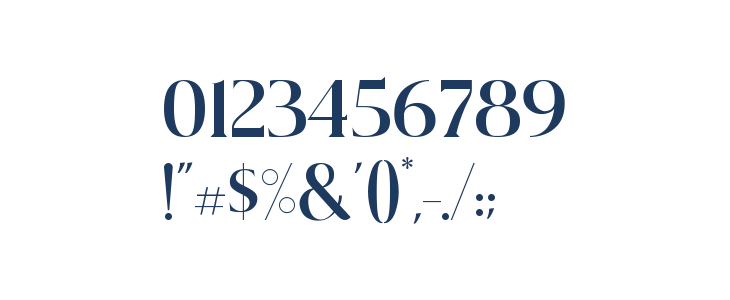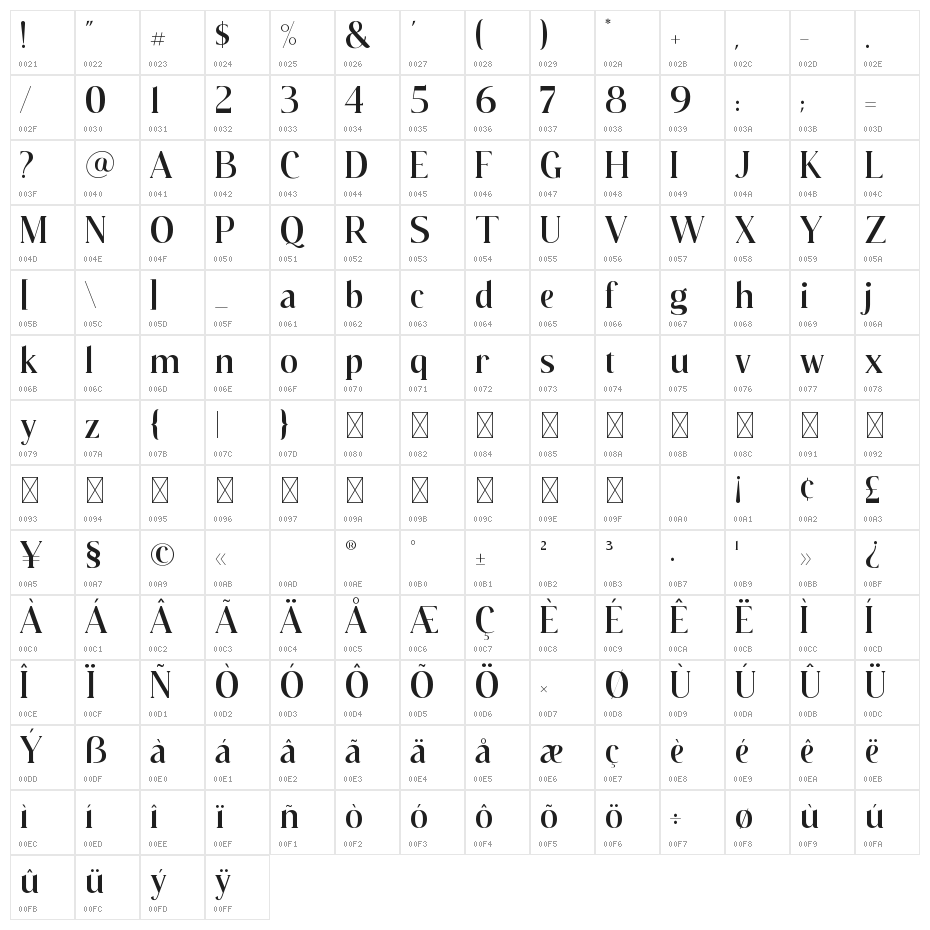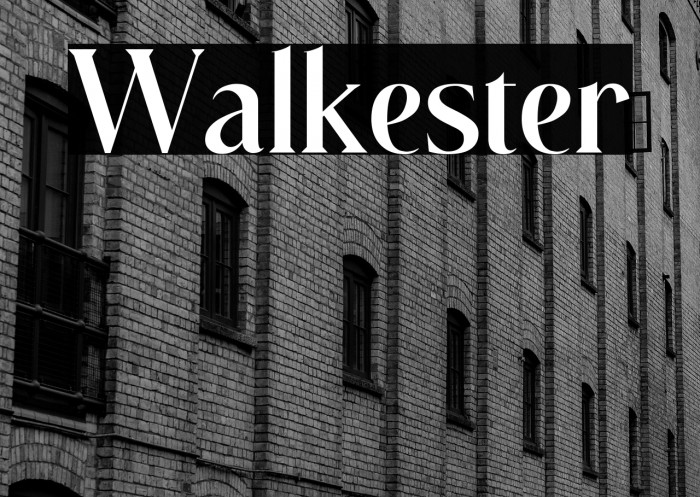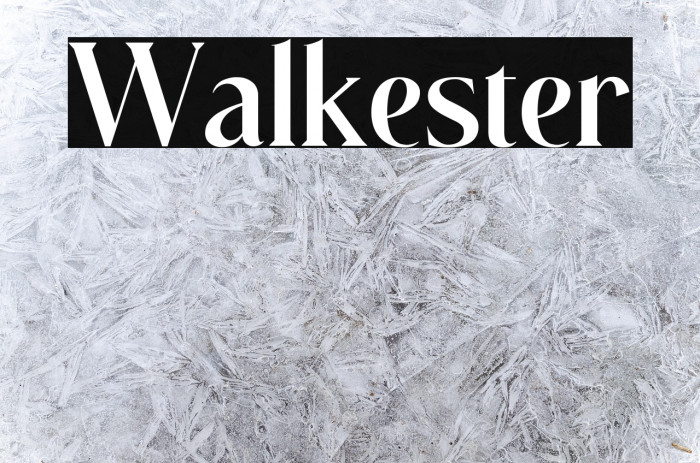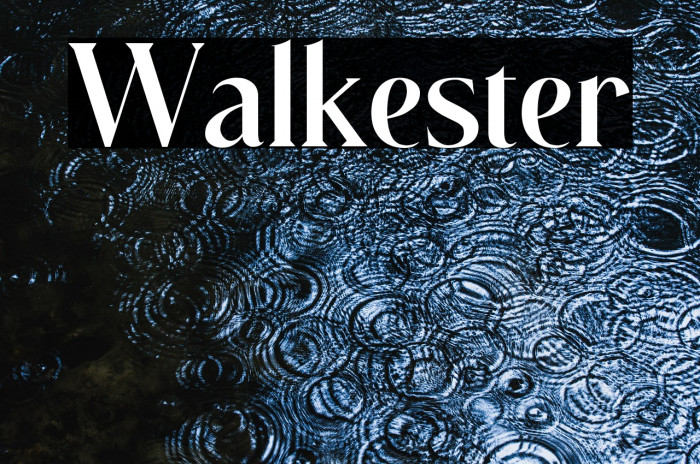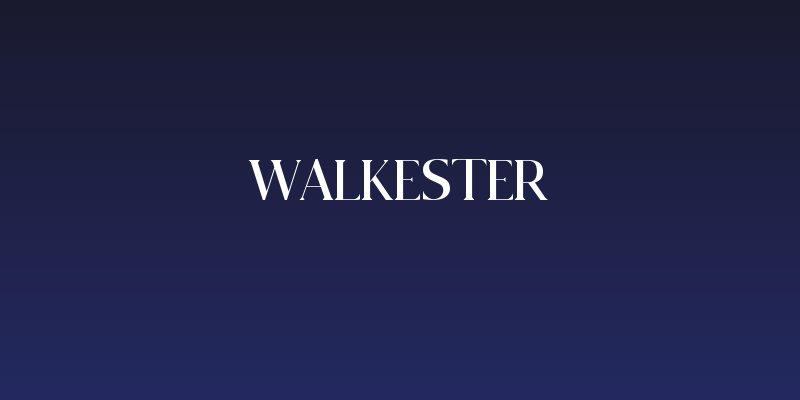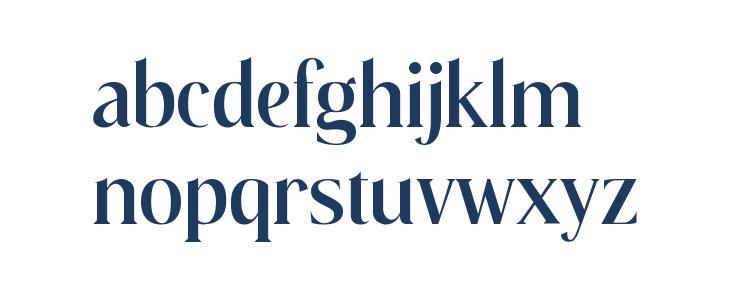
Walkester Font
Walkester Description
This font features a sophisticated serif style with high contrast between thick and thin strokes, giving it an elegant and classic appearance. The uppercase letters are tall and stately, while the lowercase letters maintain a balanced and harmonious look. The numerals are distinct and bold, ensuring clarity and readability. Special characters are designed with the same attention to detail, making them seamlessly integrate with the rest of the font. The overall design is both timeless and versatile, suitable for a variety of applications where a touch of refinement is desired.
| Overall Style | Classic |
| Proposed Projects | Ideal for editorial design, book covers, luxury branding, and formal invitations. |